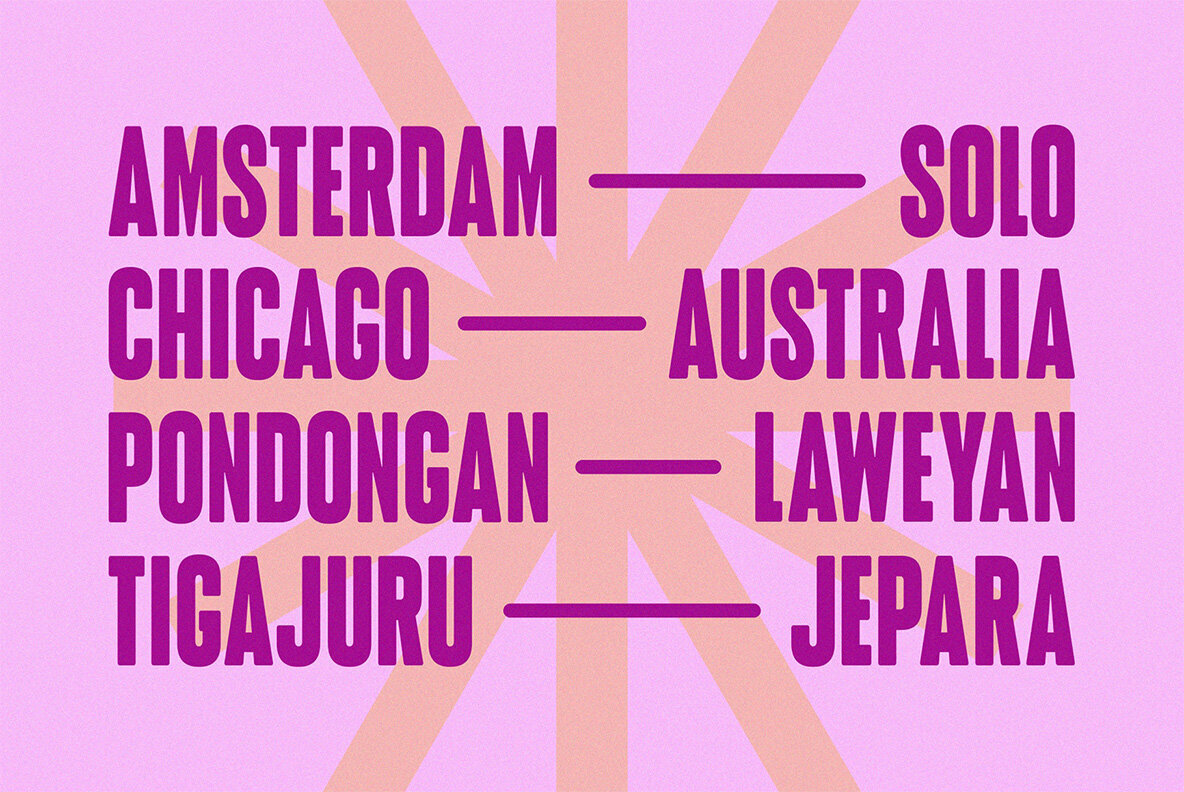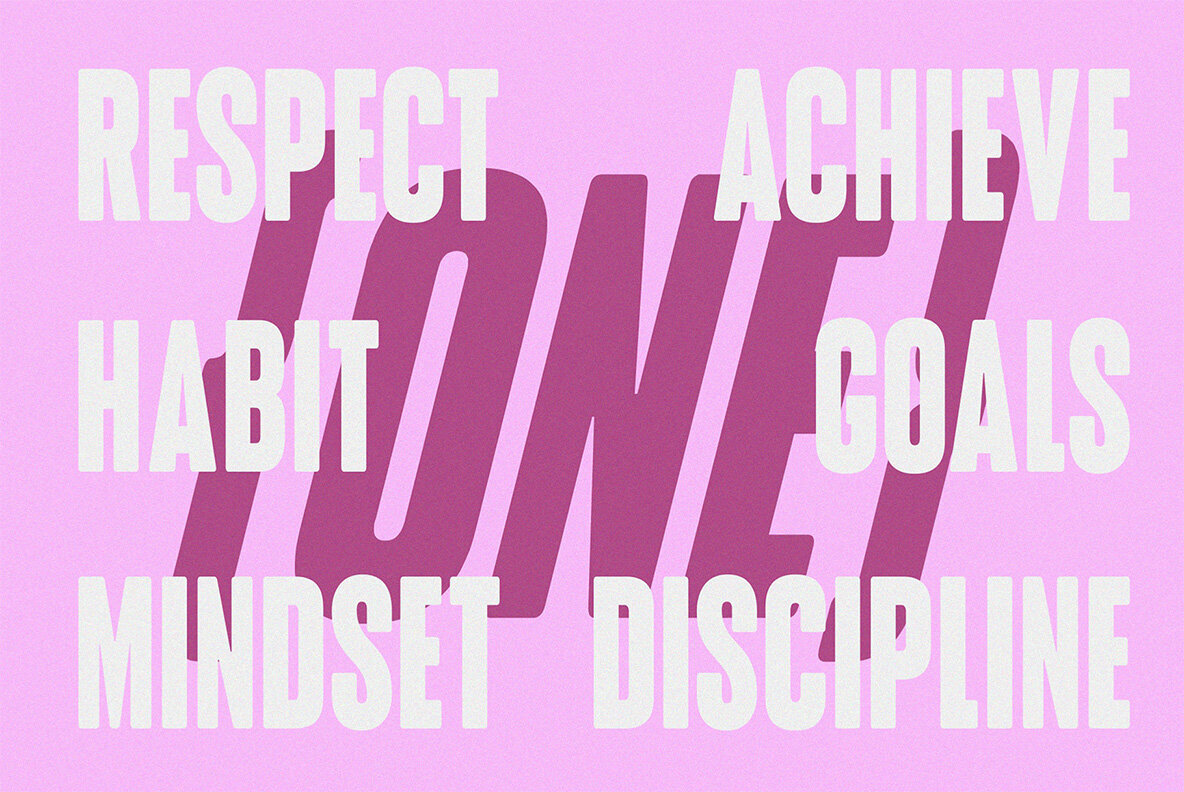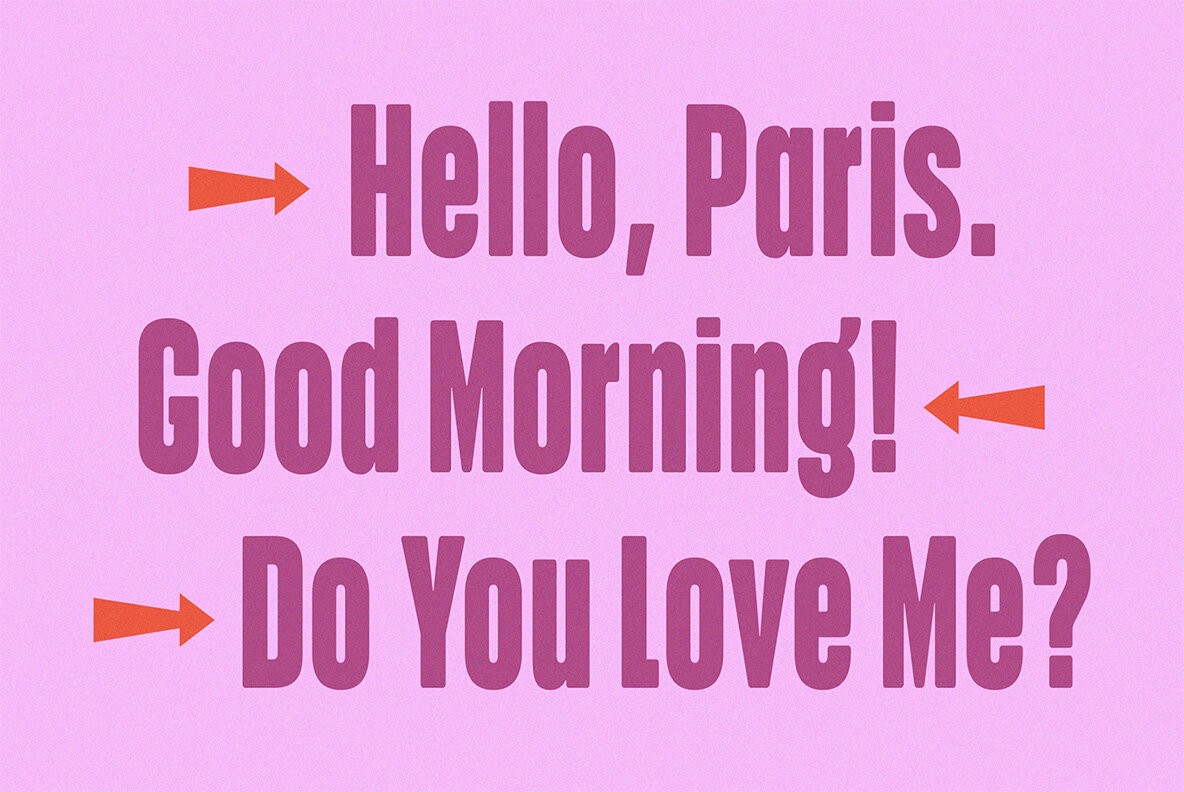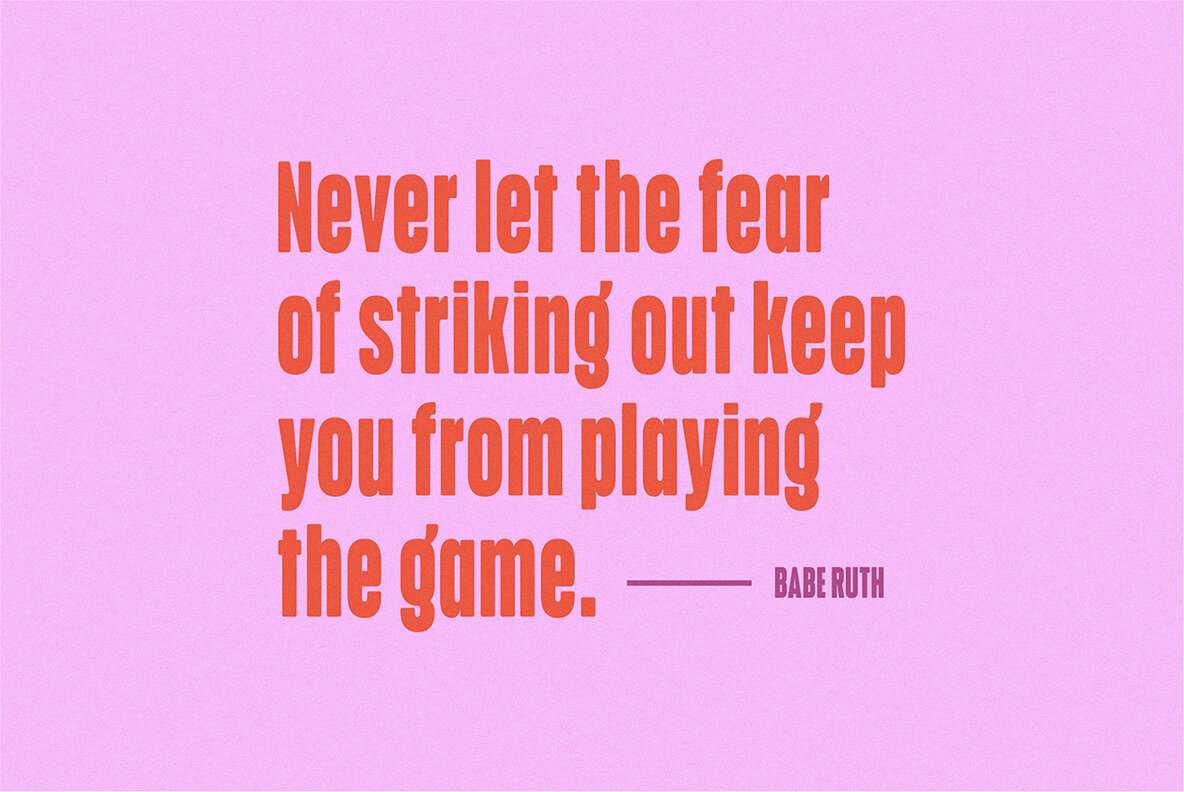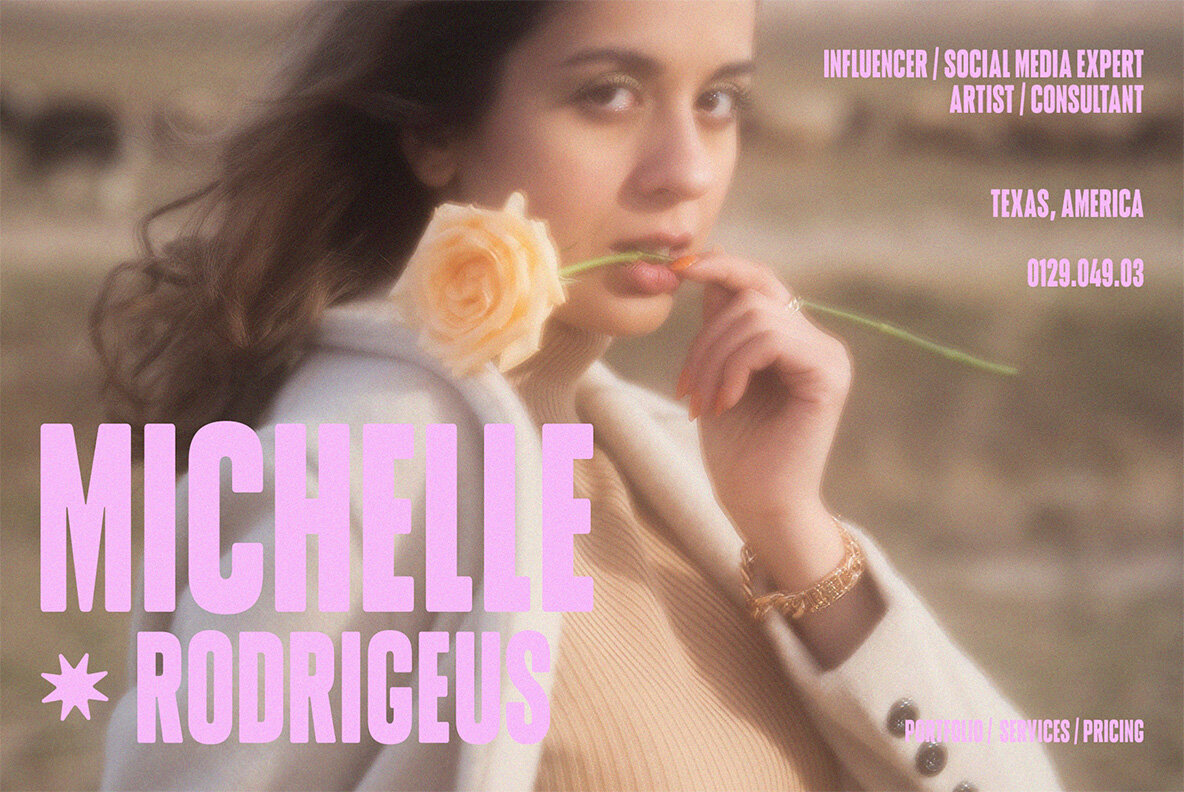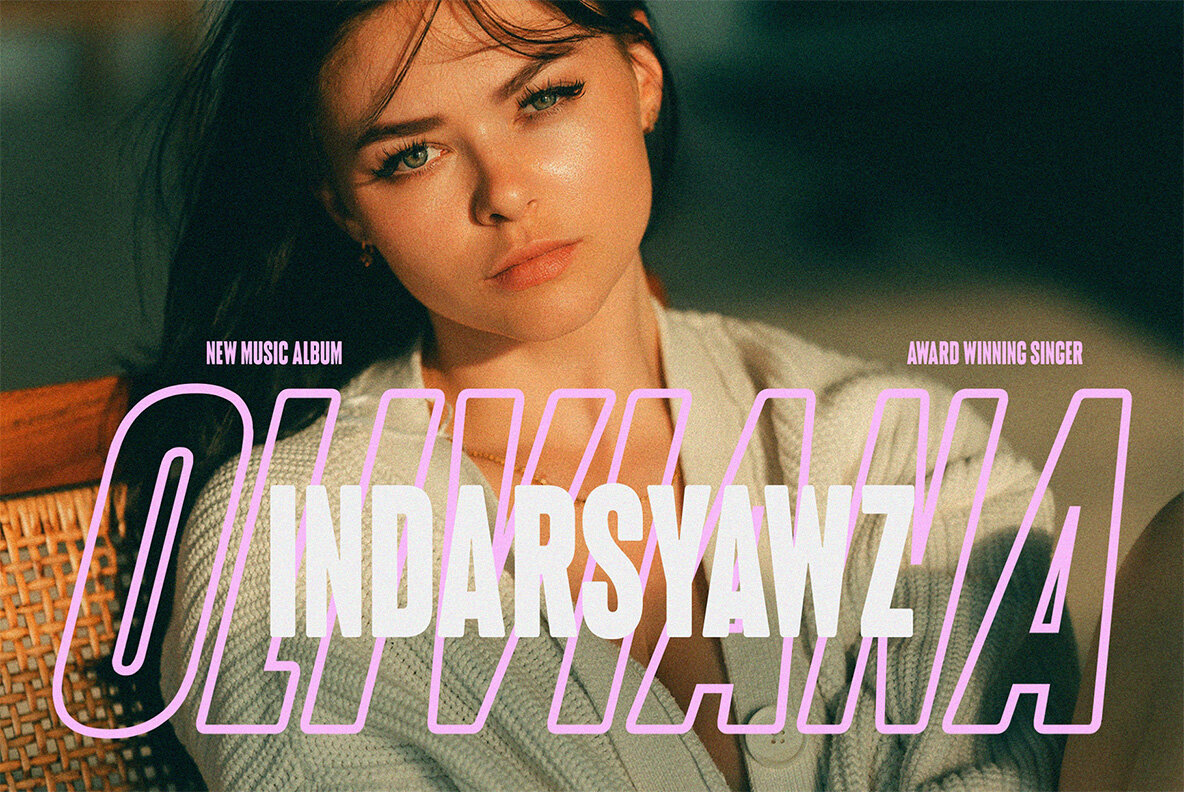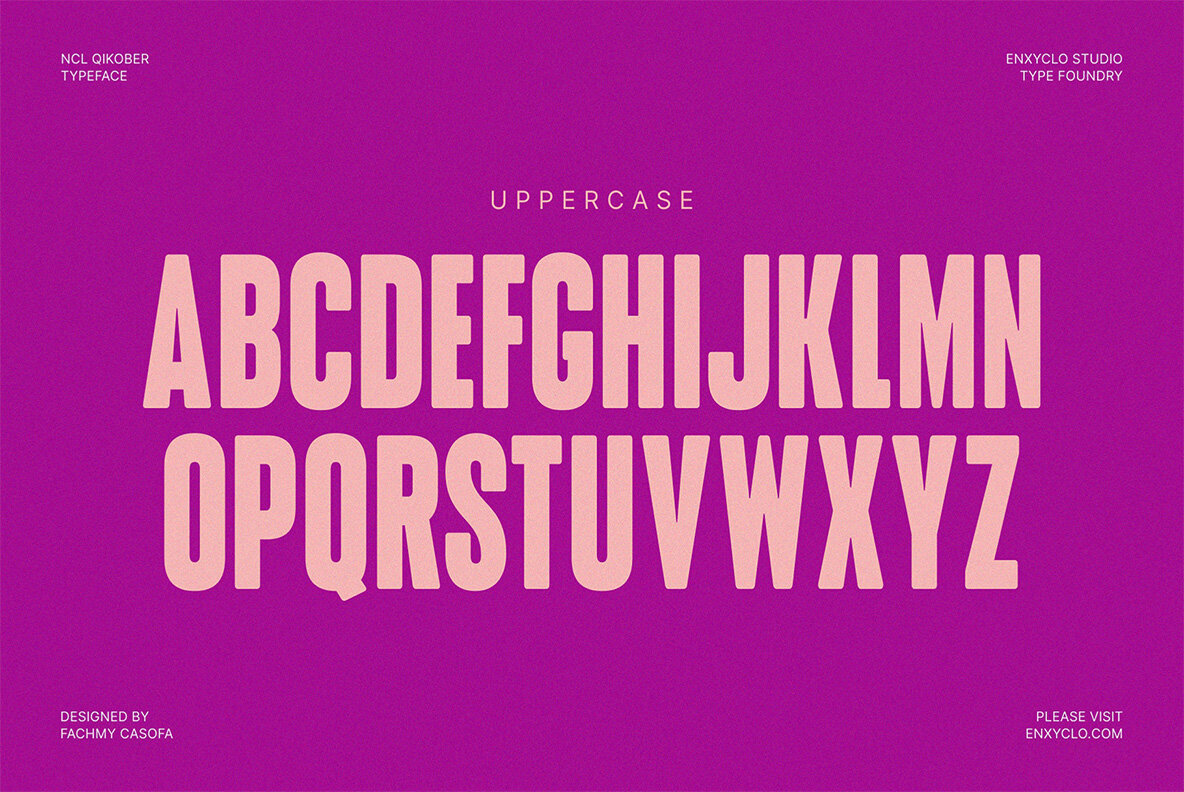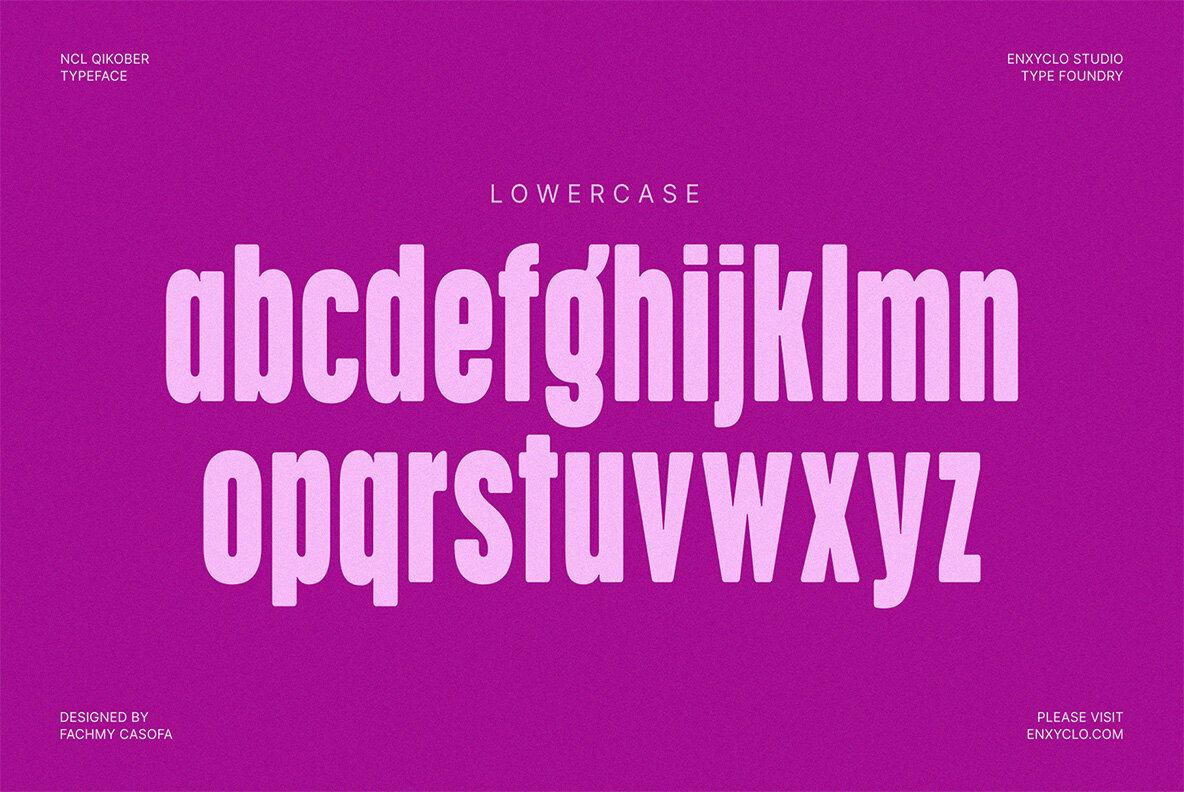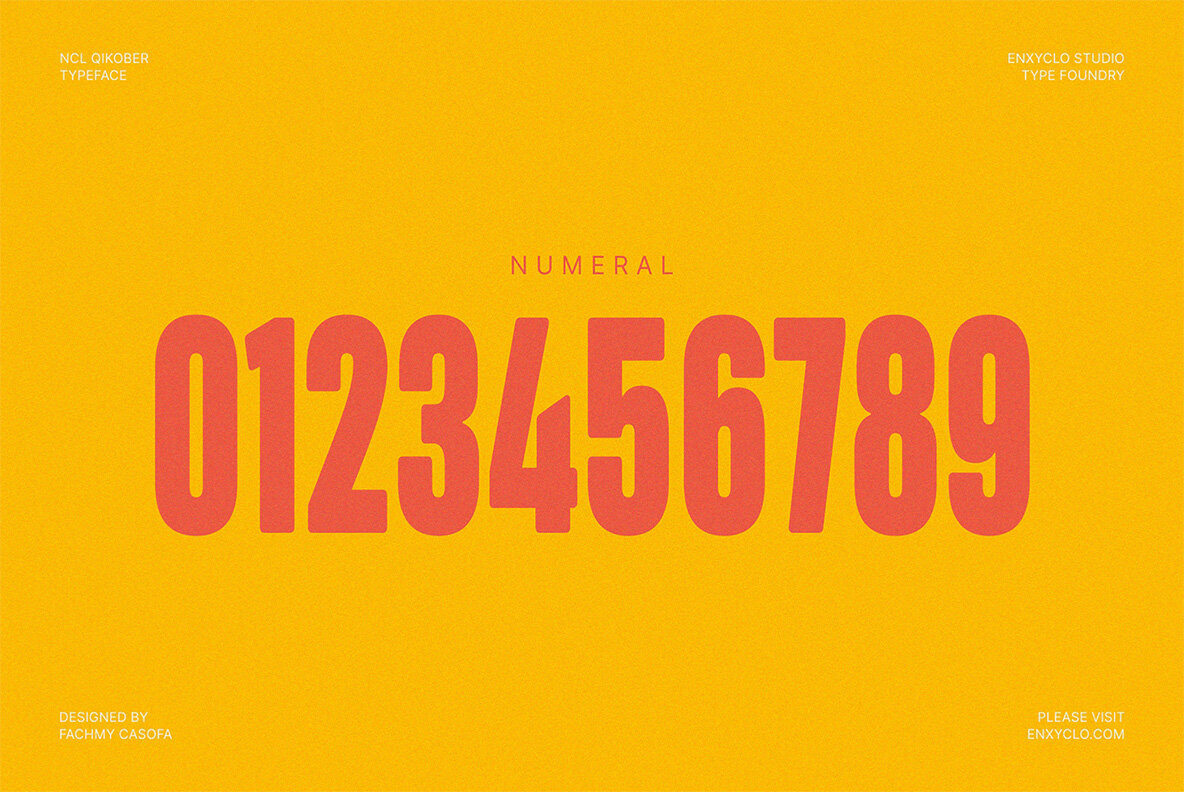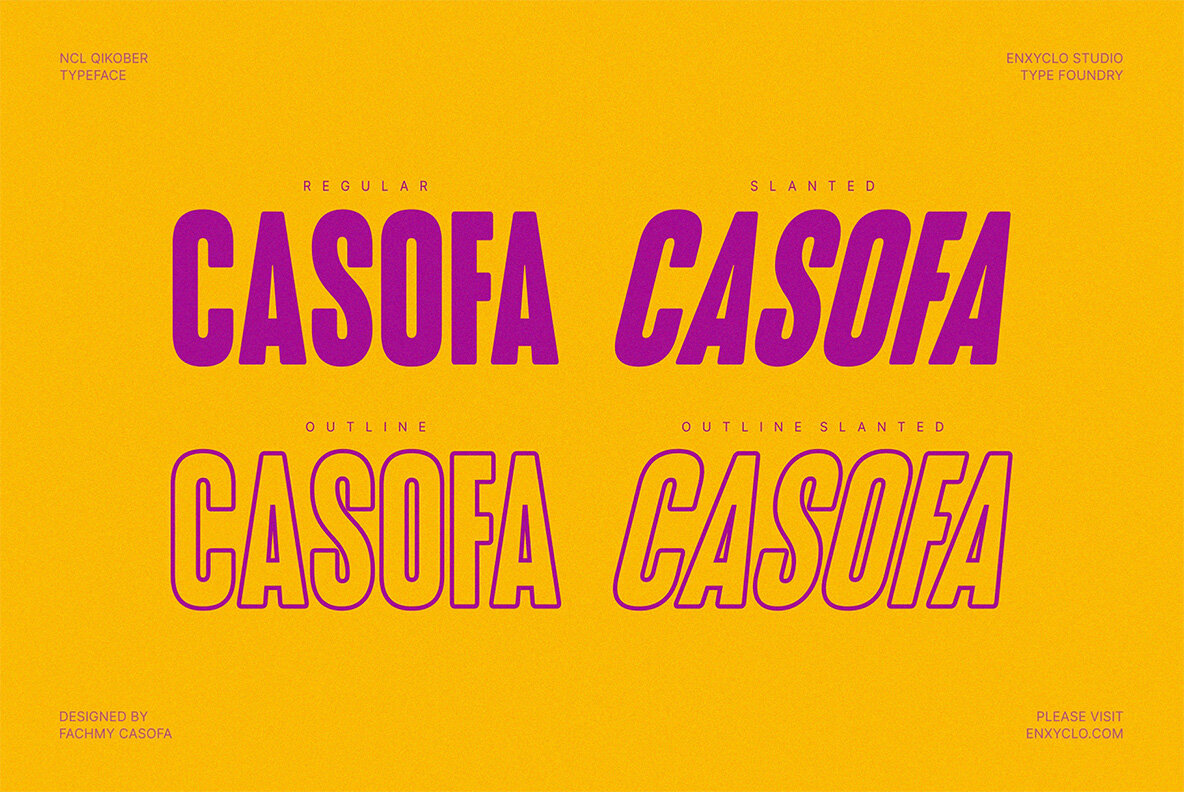
NCL Qikober Font
NCL Qikober is a bold rounded condensed font. Masterfully designed to become a true favorite, this font has the potential to bring each of your creative ideas to the highest level! It was purposely crafted to be used in large point sizes, although it doesn’t lose its magic in small point sizes. It is perfect for headline, billboard, magazines, website, titles, poster, branding, and logos. No matter the topic, this font will be an incredible asset to your fonts’ library, as it has the potential to elevate any creation. With this beautiful font, absolutely you can make your project stand out from the rest. FEATURES 4 Style: Regular, Slanted, Outline, Outline Slanted Contains 343 Glyphs for Each Style and 1372 Glyphs for Total Uppercase & Lowercase Numeral, Punctuation & Symbols Multilingual Support